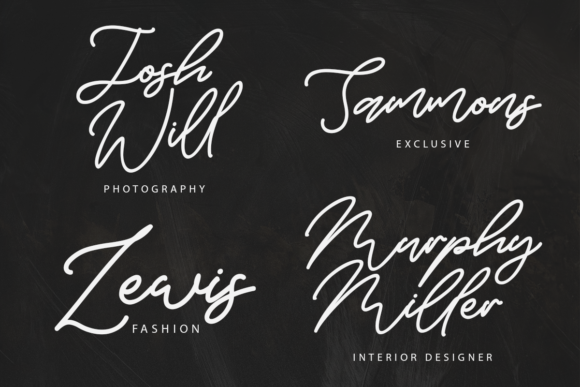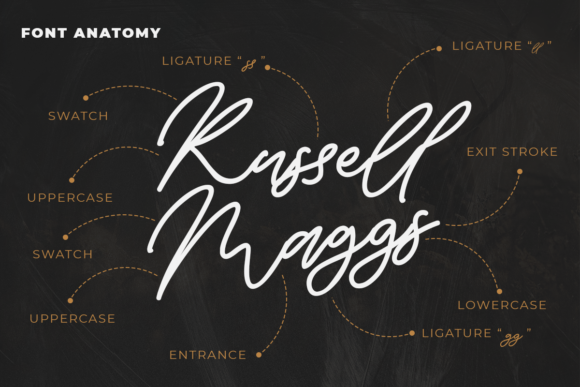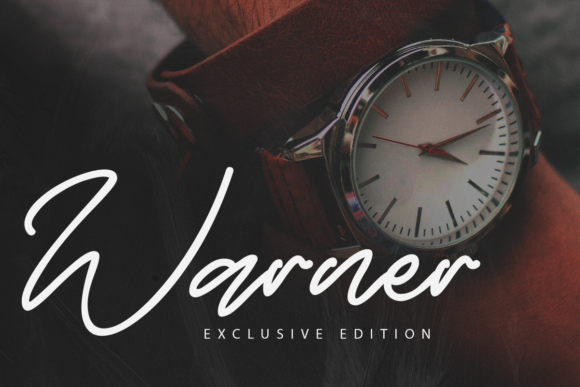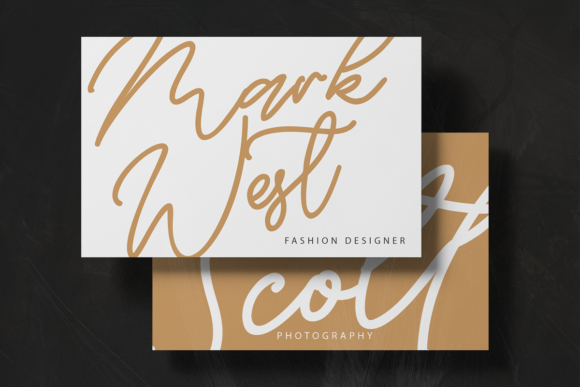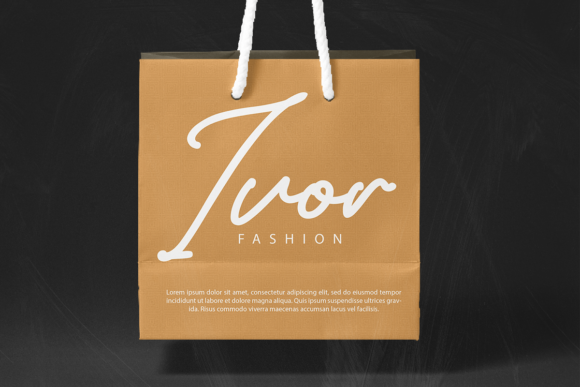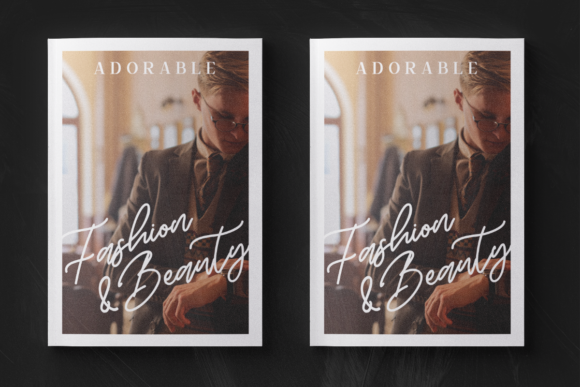
The Timeless Charm of Bryan Coyne Font: A Designer’s Delight
I’ll never forget the time I was working on a branding project for a boutique coffee shop. My client wanted a logo that was both elegant and playful, but I was struggling to find the right font to capture that vibe. That’s when I stumbled upon Bryan Coyne Font, and it instantly became my go-to choice. In this article, I’ll share my love for this lovely and timeless handwritten font, its features, and how to make the most of it in your designs.
An Honest Review of Bryan Coyne Font
- ✅ Unique and beautiful touch: Every letter in Bryan Coyne Font has a distinct character that adds a personal touch to your designs.
- ✅ Versatile: This font is perfect for creating eye-catching logos, branding, quotes, and more.
- ✅ Timeless: The handwritten style of Bryan Coyne Font is both classic and modern, making it suitable for a wide range of design projects.
- ✅ Easy to read: Despite its unique touch, the font remains highly legible, even at smaller sizes.
While Bryan Coyne Font is an excellent choice, there are a few things to keep in mind:
- 🤔 Limited use in formal designs: Due to its handwritten nature, Bryan Coyne Font might not be the best fit for formal or corporate designs.
- ⚠️ May not work well in small sizes: While the font is generally legible, it may lose some of its charm when used in very small sizes.
- Experiment with OpenType features, such as ligatures and stylistic alternates, to add more personality to your text.
- Explore the font’s glyphs and OpenType features by accessing the “Glyphs” panel or using keyboard shortcuts.
The Story Behind Bryan Coyne Font
Bryan Coyne Font was designed with the intention of creating a timeless, handwritten font that captures the essence of classic writing. The designer aimed to craft a font that’s both elegant and playful, making it perfect for a wide range of design projects. While the exact story behind the font’s creation might be unknown, its charm and versatility have made it a favorite among designers.
| What type of projects is Bryan Coyne Font best suited for? | Bryan Coyne Font is perfect for creating eye-catching logos, branding, quotes, and more. Its versatility makes it suitable for a wide range of design projects. |
| Is Bryan Coyne Font easy to read? | Yes, despite its unique touch, Bryan Coyne Font remains highly legible, even at smaller sizes. |